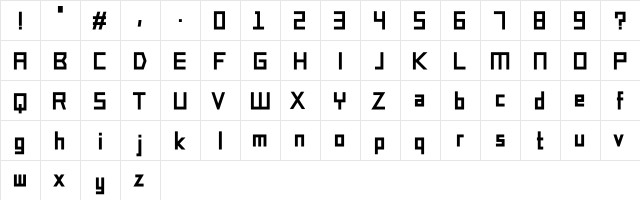
Robot_Font 100
Design Context for Robot_Font Typeface
Robot_Font offers clean, dependable letterforms without strong stylistic allegiance, making it a practical choice for designers who need flexibility.